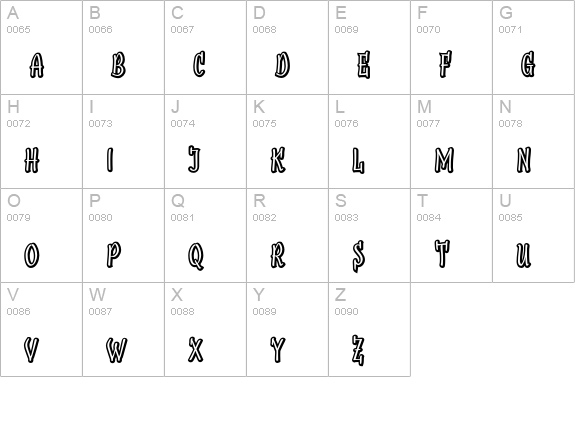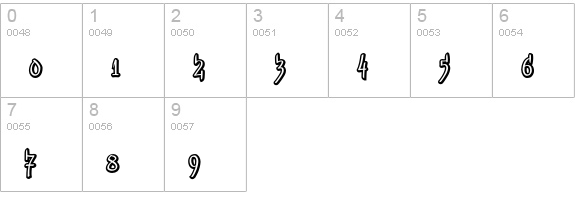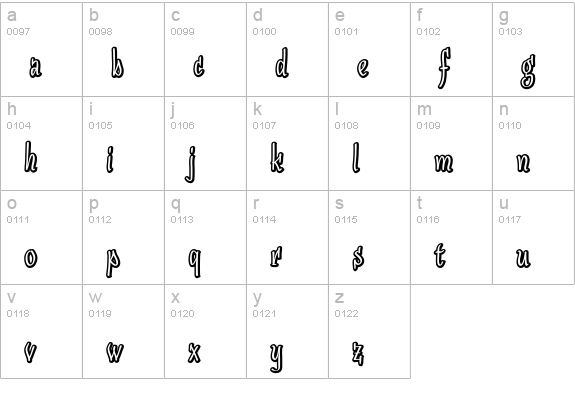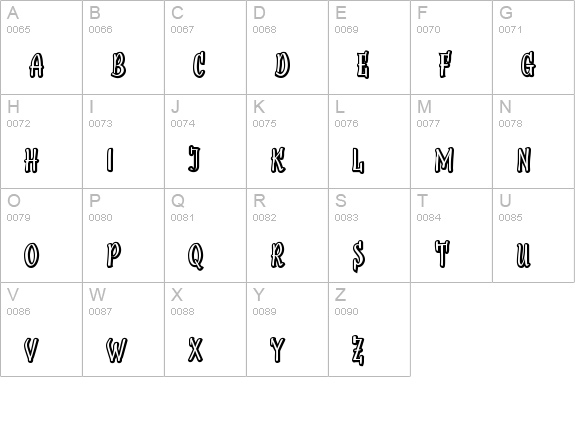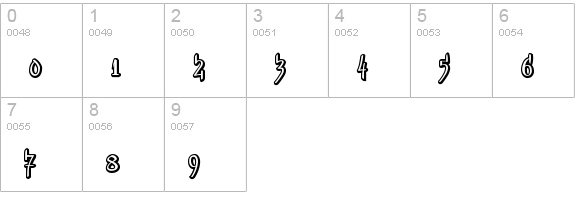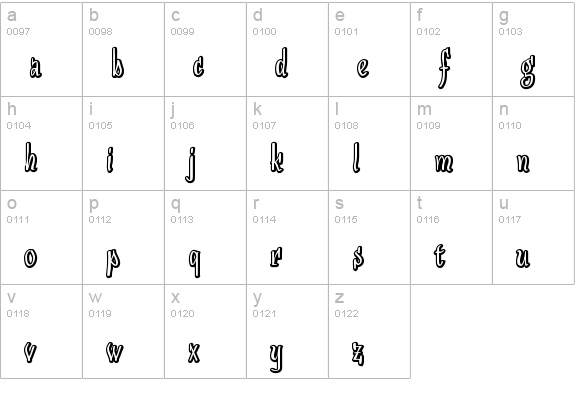
SudegnakNo2 Font Details
SudegnakNo2 font is a stunning typeface that effortlessly combines elegance and versatility. Its sleek and modern design makes it perfect for a wide range of projects, from branding and advertising to editorial and web design. This font boasts a unique and distinctive character, with its clean lines and well-defined curves. It exudes a sense of sophistication and professionalism, making it an excellent choice for any project that requires a touch of class. One of the standout features of SudegnakNo2 font is its versatility. It can be used for both headlines and body text, ensuring that your message is conveyed with clarity and impact. The carefully crafted letterforms ensure legibility even at smaller sizes, making it suitable for various print and digital mediums. And the best part? SudegnakNo2 font is completely free! That's right, you can download this exceptional typeface without spending a dime. It is readily available for download at FontsMarket.com, a trusted platform for high-quality fonts. Whether you are a professional designer looking to elevate your projects or an individual looking to add a touch of style to personal creations, SudegnakNo2 font is the perfect choice. Embrace its elegance and versatility to create stunning visuals that leave a lasting impression. Download this font today from FontsMarket.com and let your creativity soar.